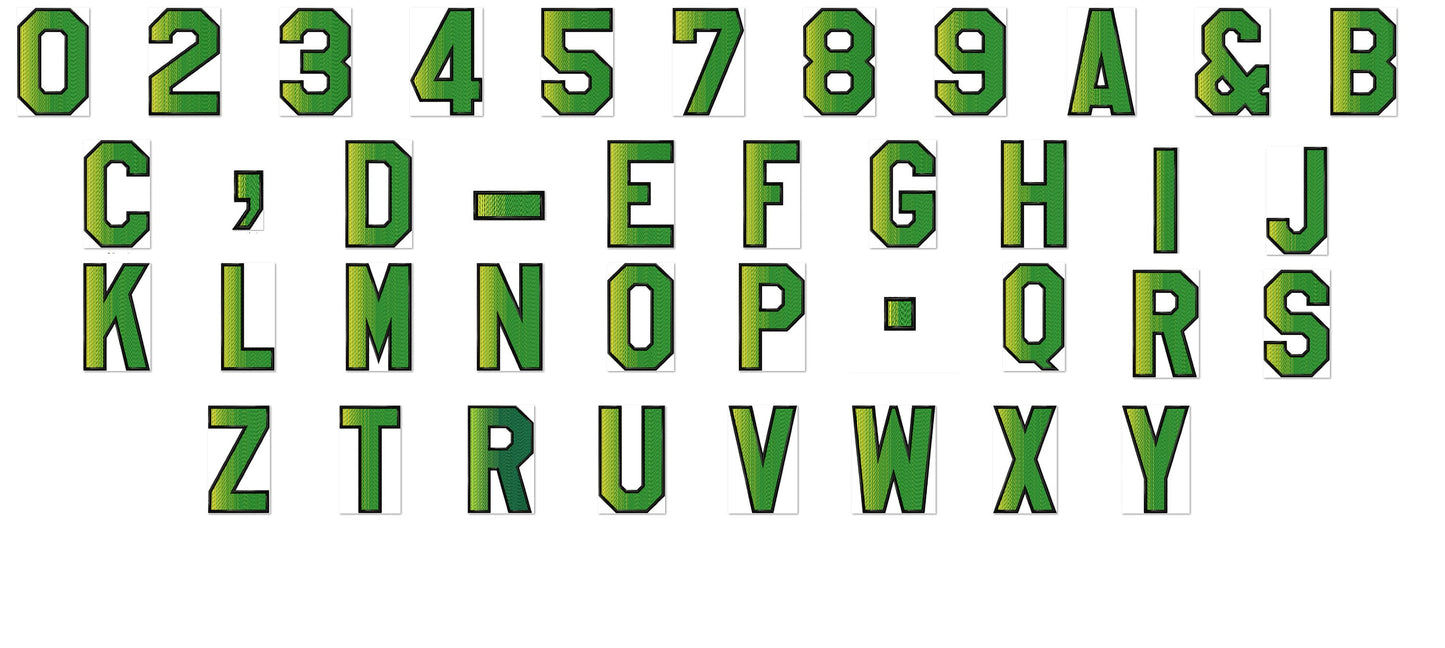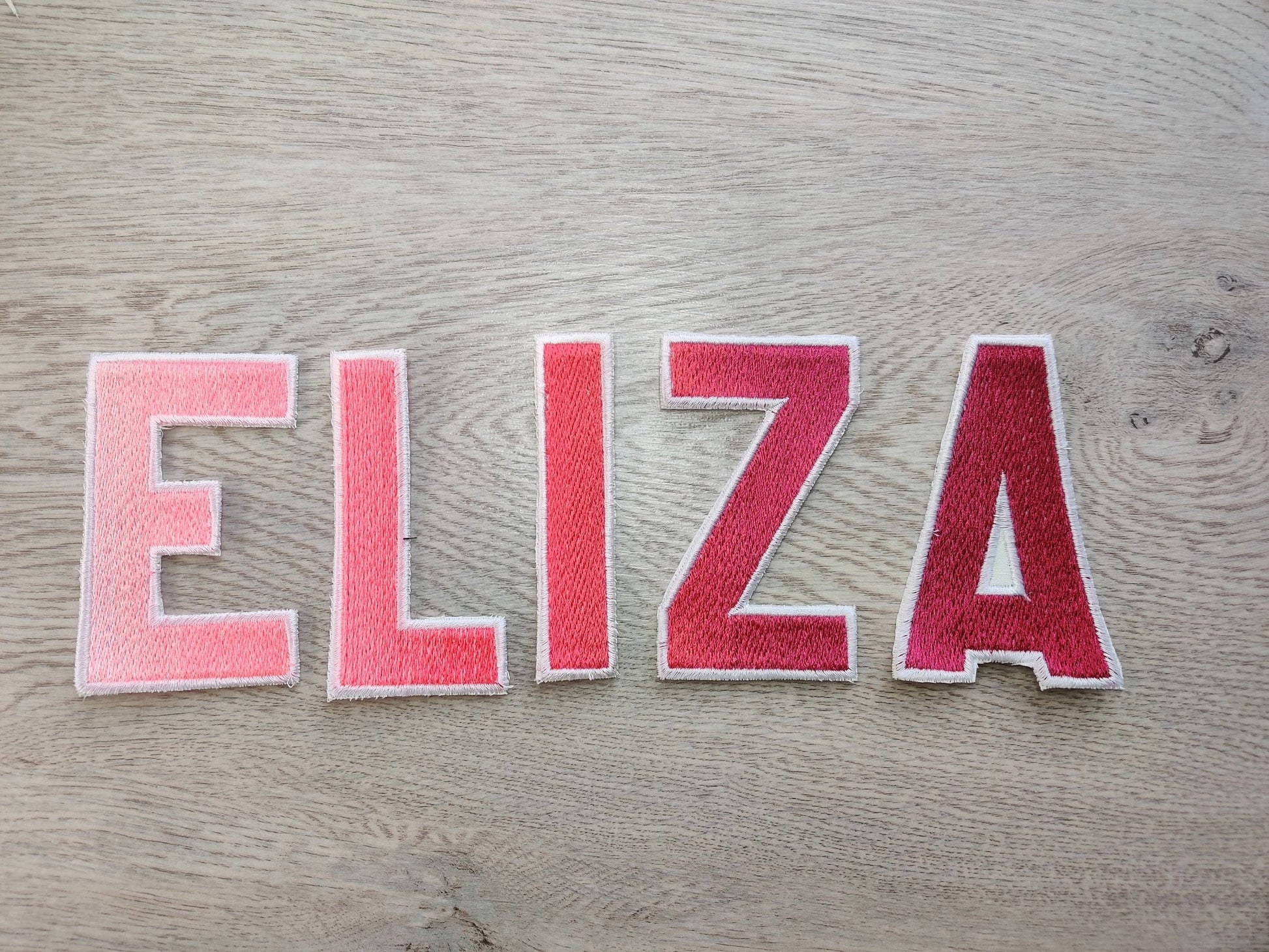
Iridescent 2-Color Block Monogram Font
Uppercase letters A to Z, numbers 0 to 9 and punctuation in seven sizes: 2, 2.4, 3, 3.3, 3.5, 3.9 and 5.1 inches. Each letter shifts from one color to the other, so the rainbow look comes from the stitching itself.
- Iridescent 2-color block font
- Uppercase A to Z, numbers 0 to 9, punctuation
- 7 sizes, 2 to 5.1 in